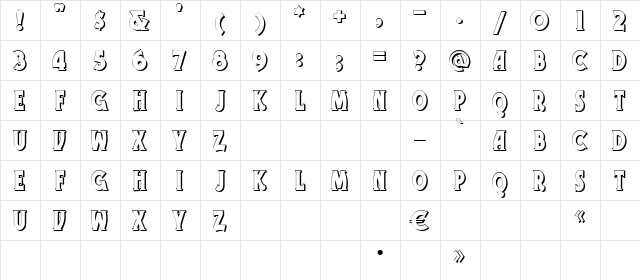
TelegraphShodwn Regular
Foundry: Gophmann A.L.
Designer: Gophmann A.L.
Design Context for TelegraphShodwn
TelegraphShodwn is a composed and adaptable typeface that performs quietly and consistently across a wide range of design contexts.